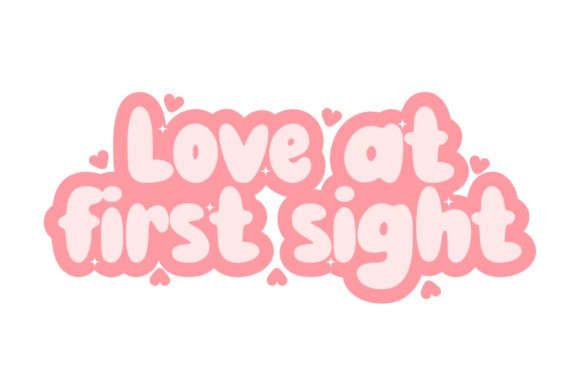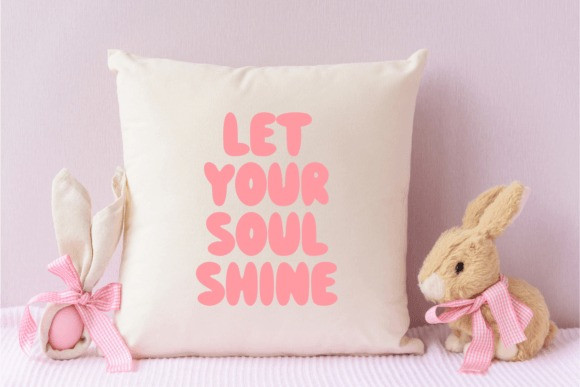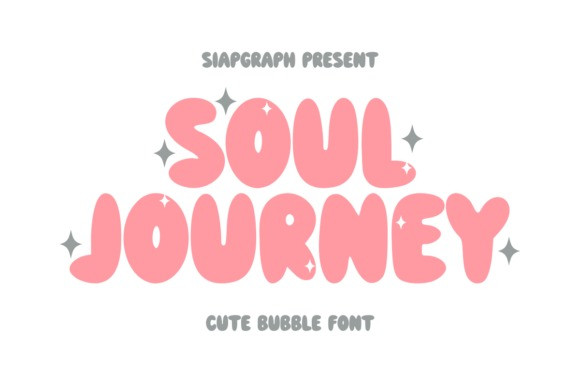
Soul Journey Font
Soul Journey Font is a modern and bold retro bubble display font, perfect for adding a playful and eye-catching touch to any project. It works wonderfully for logos, stickers, packaging designs, Cricut projects, headlines, brand identities, apparel designs, posters, magazines, books, YouTube, Instagram, websites, and more.
This versatile font is also ideal for celebrating special occasions and holidays like New Year’s Day, Valentine’s Day, Black Friday, the Super Bowl, Saint Patrick’s Day, Mardi Gras, International Women’s Day, Easter, Earth Day, Mother’s Day, Memorial Day, Father’s Day, Pride Month, the 4th of July, Back to School, Labor Day, Halloween, Breast Cancer Awareness Month, Thanksgiving, and Christmas.